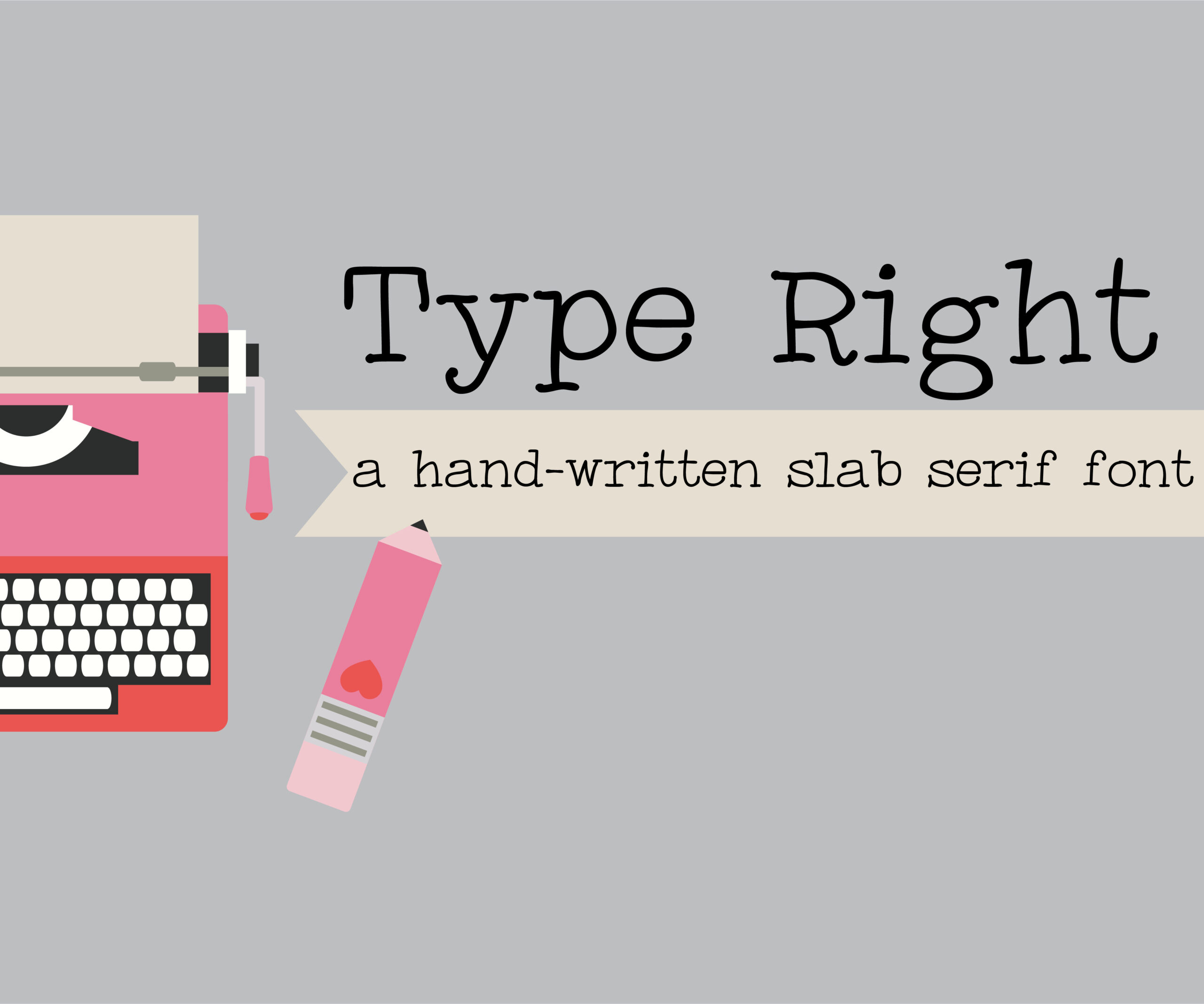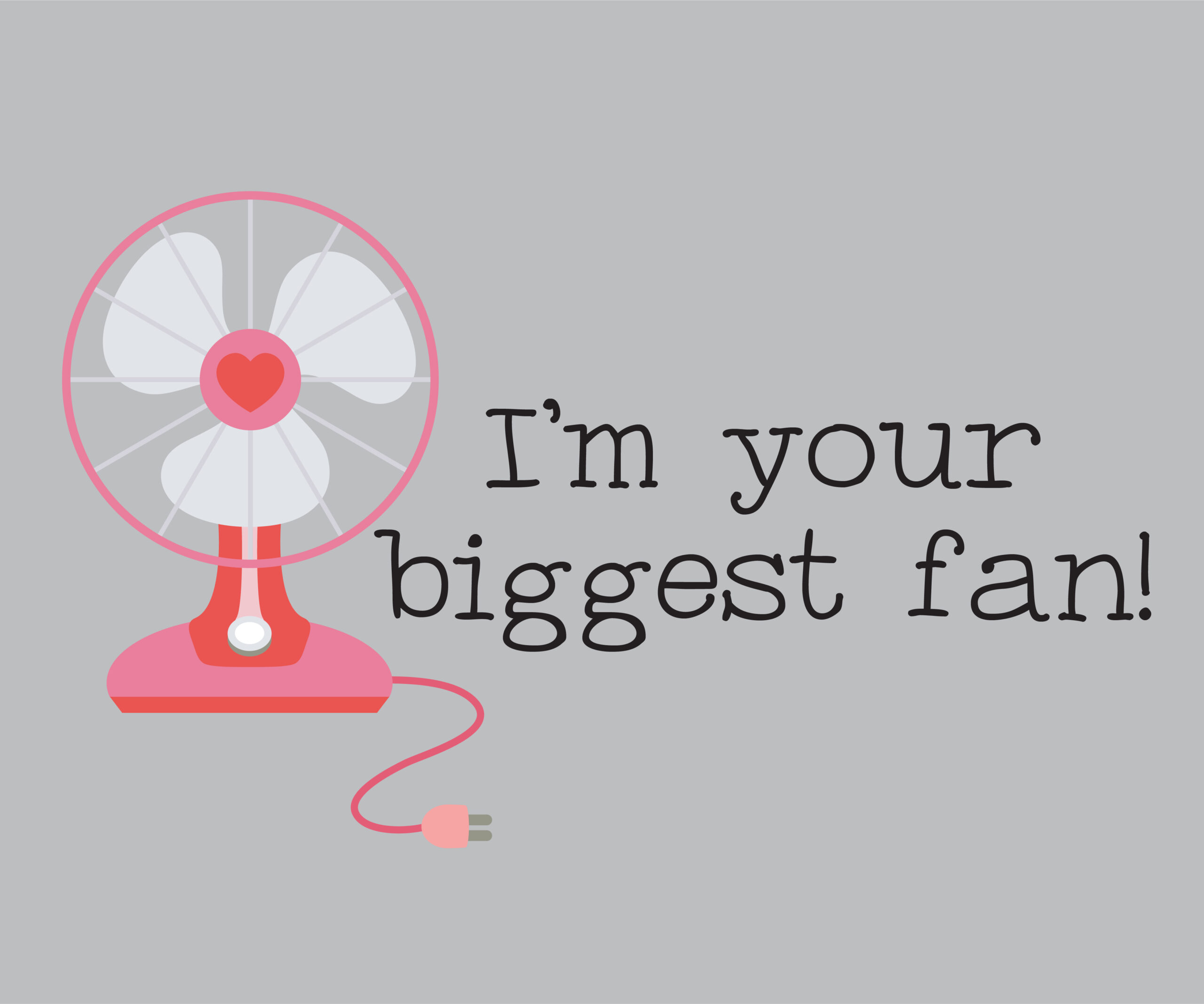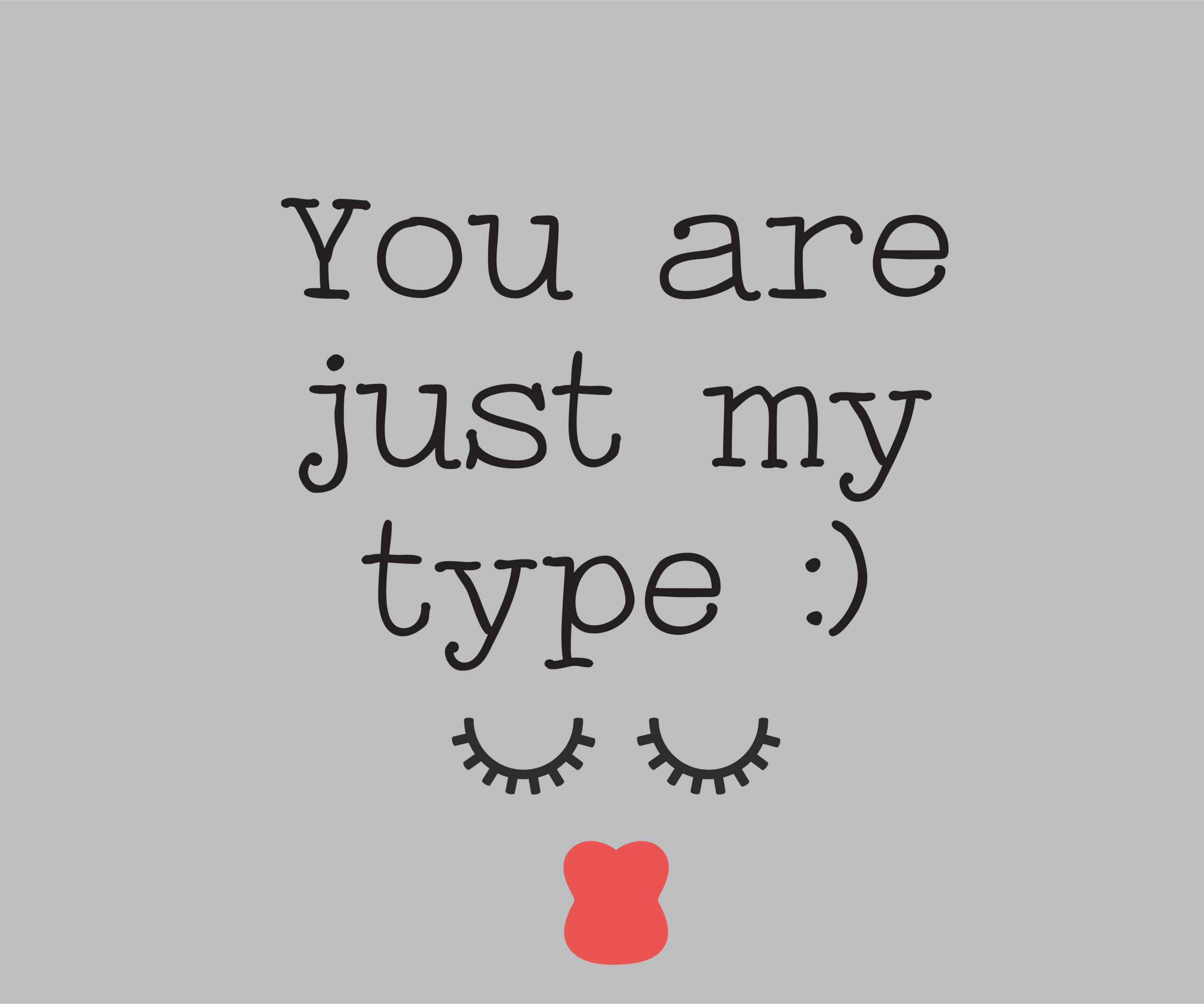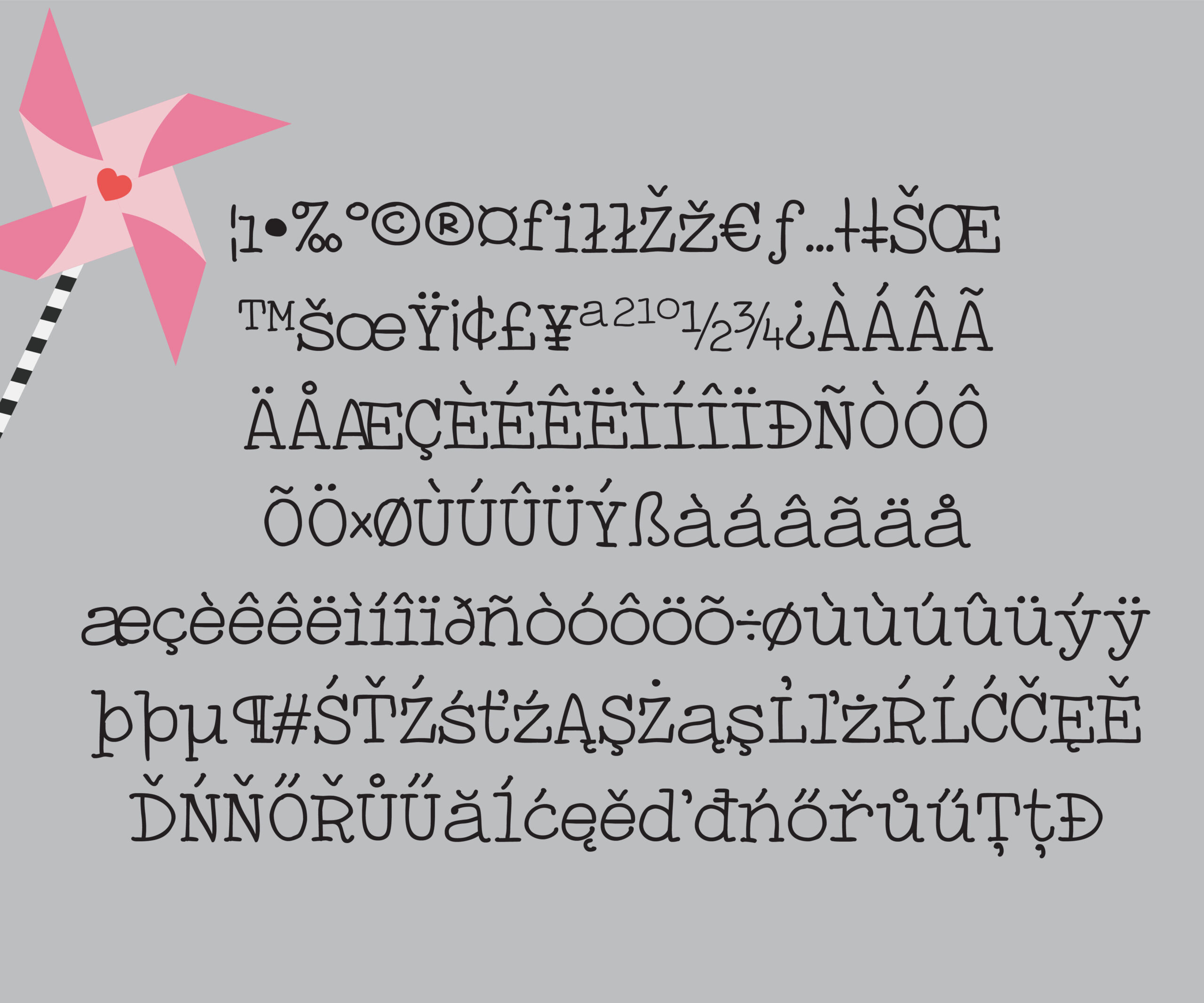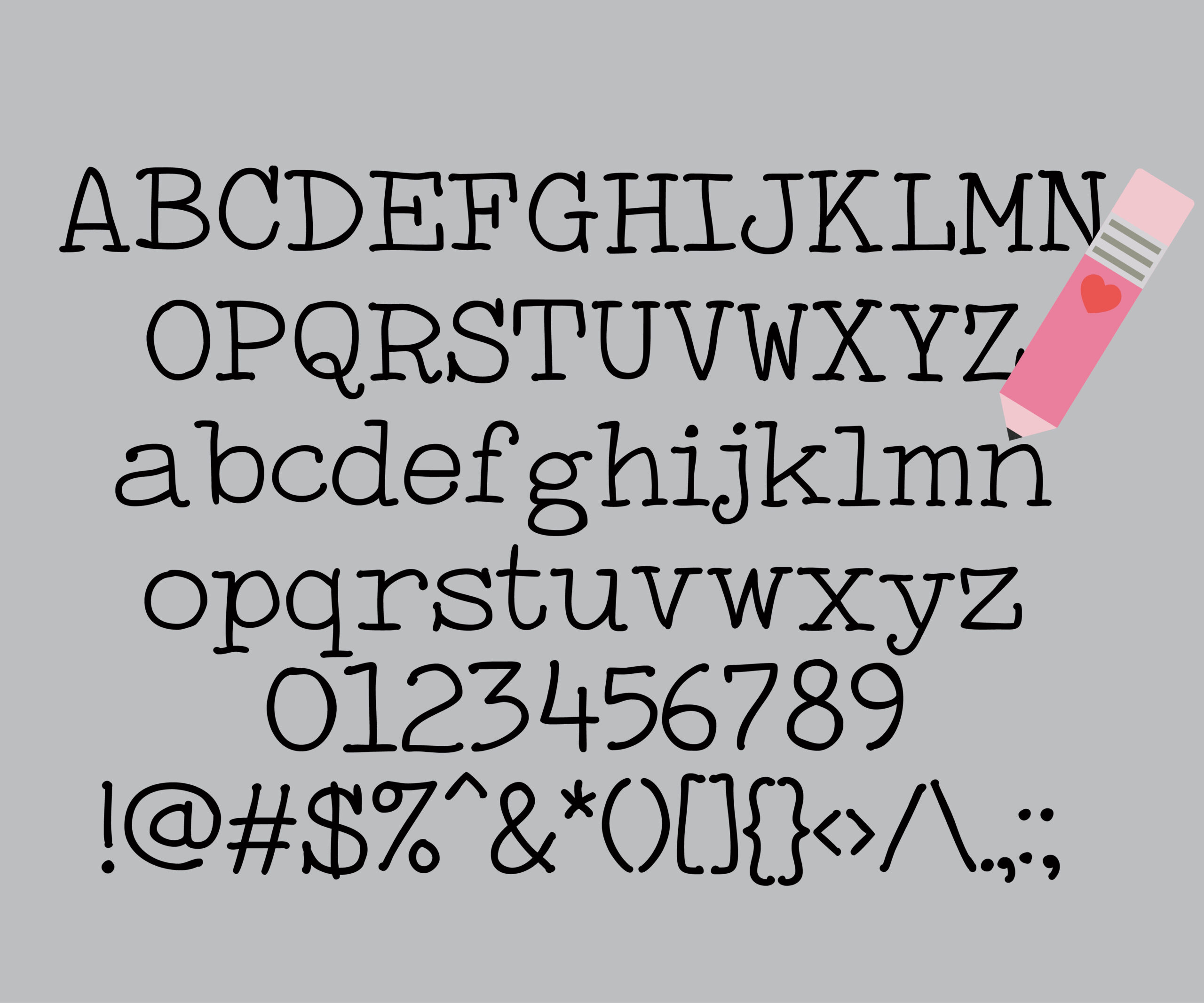
Type Right
Type Right: A Handcrafted Typewriter-Inspired Slab Serif Font
Type Right is a unique slab serif font that combines the classic look of typewriter text with the charm of handwritten typography. This distinctive typeface offers designers a tool for creating impactful and personal typography that evokes a sense of nostalgia and craftsmanship.
Key Features of Type Right
• Typewriter Aesthetic: Mimics the appearance of text produced by traditional typewriters
• Handwritten Feel: Incorporates a crafty, home-made quality to the letterforms
• Slab Serif Structure: Features the characteristic thick, rectangular serifs typical of slab serif fonts
• Nostalgic Appeal: Perfect for designs that aim to evoke a sense of the past
• Versatile Application: Suitable for various design projects requiring a personal touch
Ideal Uses for Type Right
Type Right’s unique characteristics make it particularly well-suited for:
• Vintage-inspired branding and packaging
• Handcrafted product labels
• Personal correspondence and invitations
• Blog headers and social media graphics
• Book covers and editorial layouts with a nostalgic feel
Comparison with Other Slab Serif Fonts
While Type Right shares characteristics with other typewriter-inspired fonts like Smith-Corona EC1100 Prestige, its handwritten quality sets it apart. Unlike more traditional slab serifs such as Osgood Slab, Type Right offers a more personal and crafted approach to typography.
When incorporating Type Right into your designs, consider the following tips:
• Use for headlines or short blocks of text to showcase its unique handcrafted character
• Pair with simpler sans-serif fonts for body text to create contrast
• Experiment with different sizes to highlight the font’s typewriter-inspired details
• Consider using it in projects where you want to convey a sense of nostalgia or personal touch
Type Right is an excellent choice for designers looking to add a touch of handcrafted nostalgia to their work. Its unique blend of typewriter aesthetics and handwritten charm makes it stand out in the world of typography. Whether you’re working on logo designs, creating layouts for personal blogs, or developing branding for artisanal products, Type Right offers the perfect combination of vintage appeal and personal flair.
Explore how Type Right can bring a crafty, typewriter-inspired edge to your design projects. From nostalgic branding to personal correspondence, this font provides the tools to create impactful and memorable typography that captures the essence of handmade craftsmanship with a classic typewriter twist.